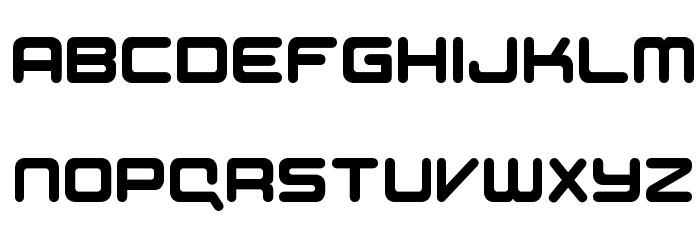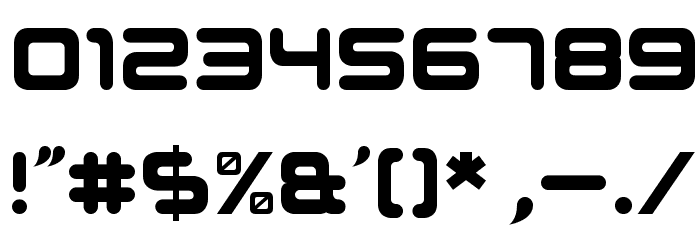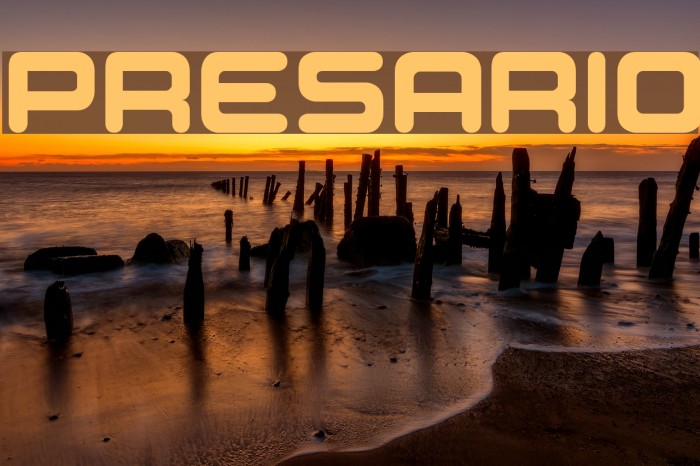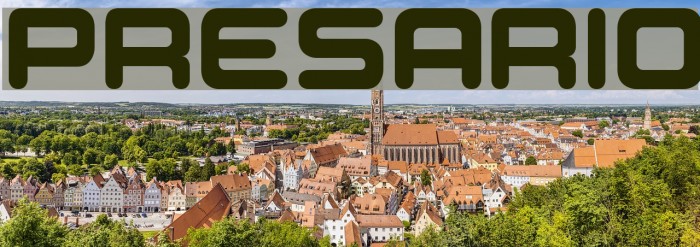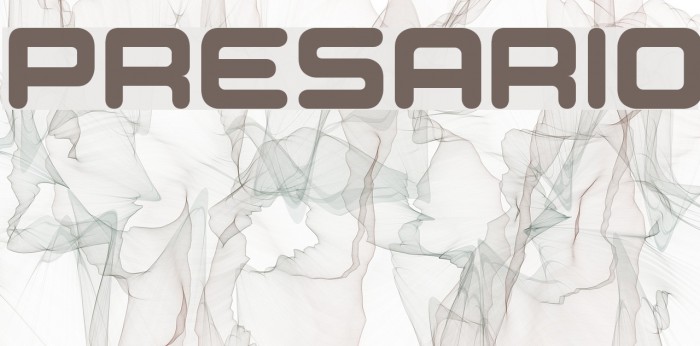
Presario Font
This font features a bold, geometric style with rounded edges, creating a modern and futuristic appearance. The characters are uniformly structured, with consistent stroke thickness that gives a cohesive look across all letters and numbers. The design incorporates a slight squaring of the curves, which adds a unique touch to the overall aesthetic. The font maintains a balanced proportion, making it versatile for various design applications. Its clean lines and smooth curves make it highly legible, even at smaller sizes. The spacing between characters is tight, enhancing its compact and efficient look. This font is ideal for projects that require a contemporary and sleek design, such as technology branding, digital interfaces, and modern advertising.
A bold, geometric font with rounded edges and a modern, futuristic style.
- Proposed Projects: Ideal for technology branding, digital interfaces, modern advertising, and futuristic designs.
- Character Spacing: Tight
- Use Case: Headlines, Logos, Digital Interfaces